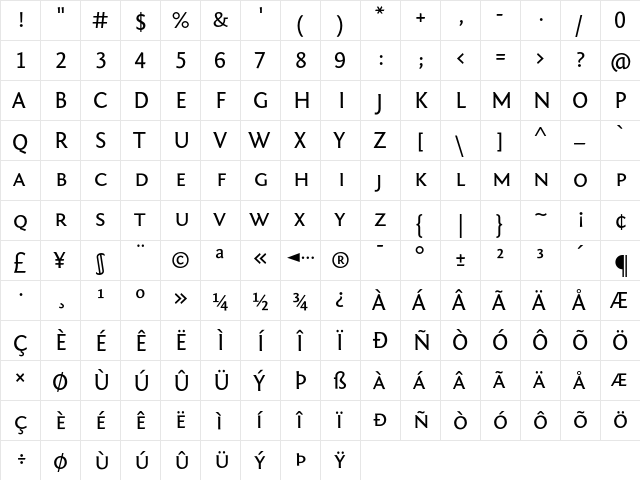
Fontin Sans Small Caps
| Foundry | Jos Buivenga |
| Designer | Jos Buivenga |
Design Context for Fontin Sans Typeface
Fontin Sans takes a measured approach to typography — its balanced proportions and neutral character make it a reliable workhorse for both digital and print work.
Pro Tip: Pair Fontin Sans with a font of contrasting weight or personality to build a more expressive typographic hierarchy.